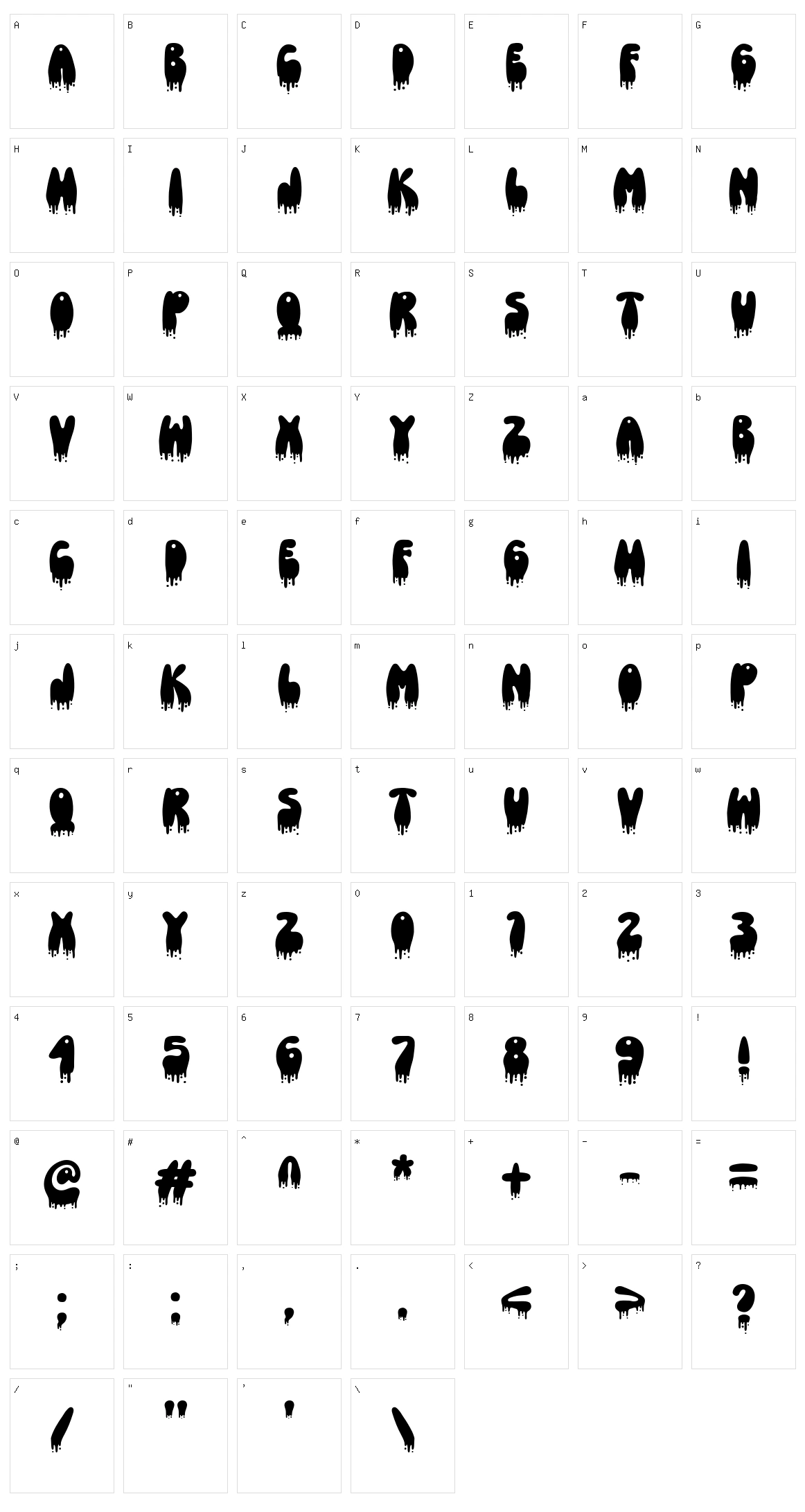
The free font Peachy Bubbly is carefully designed by Prioritype Co, showcasing a thoughtful balance of creativity and usability and falls under the Cartoon font style. When you download the ZIP file, it contains only 240.42 KB of font files, making it lightweight and quick to download. Please review the license details below to understand permitted usage and distribution rights. If license information is not available, we recommend using this font for personal projects only or contacting the author directly for commercial usage permissions.